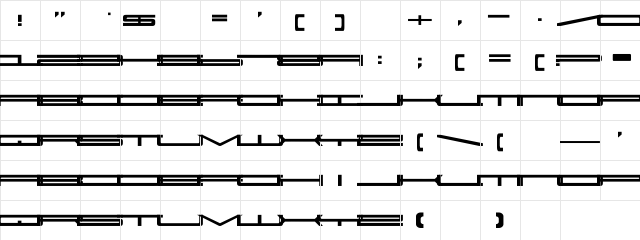
Super Ultra 911 Regular
Design Context for Super Ultra 911 Typeface
Super Ultra 911 is a composed and adaptable typeface that performs quietly and consistently across a wide range of design contexts.